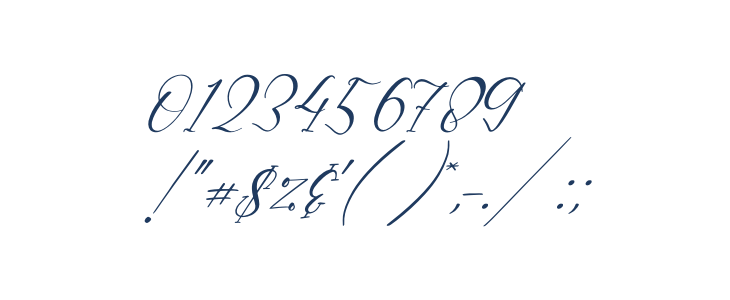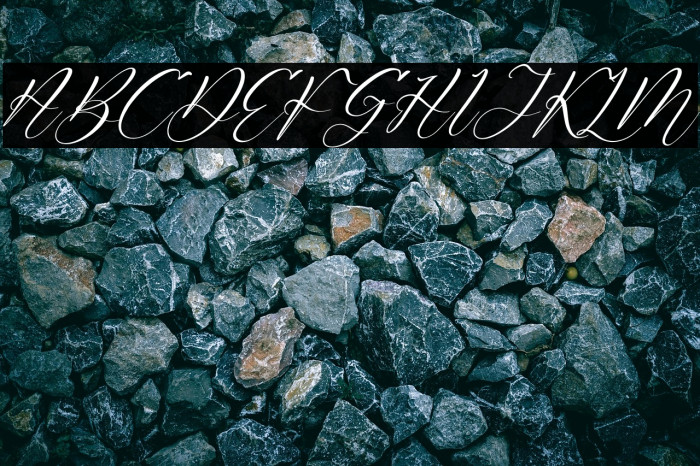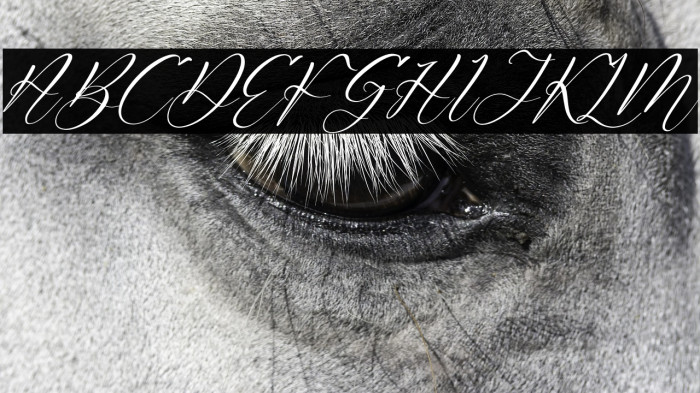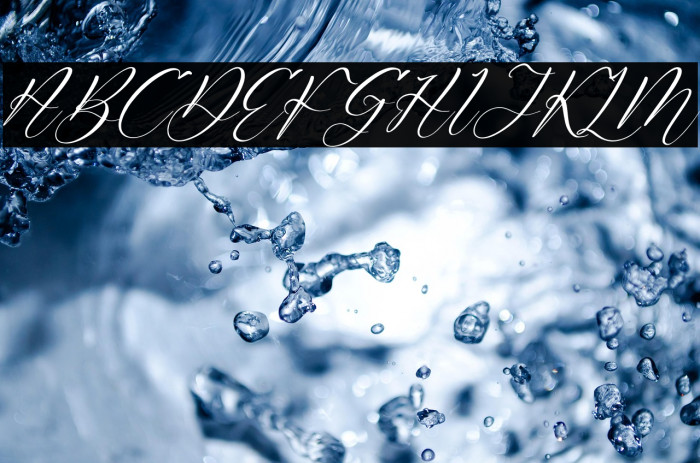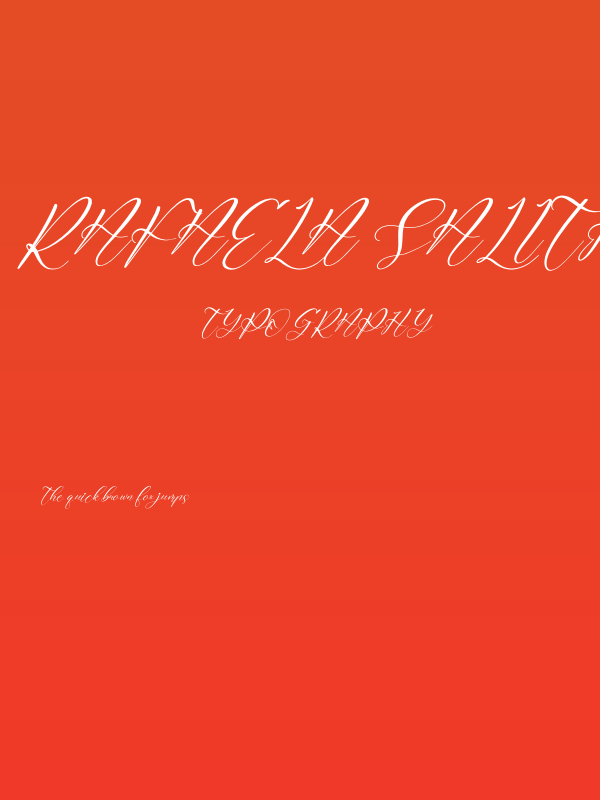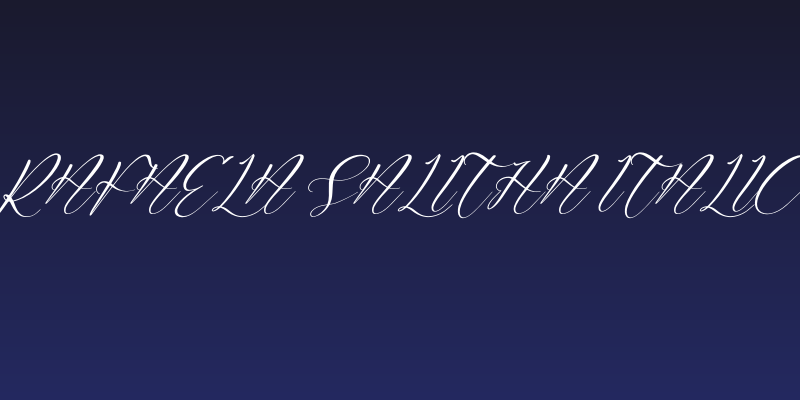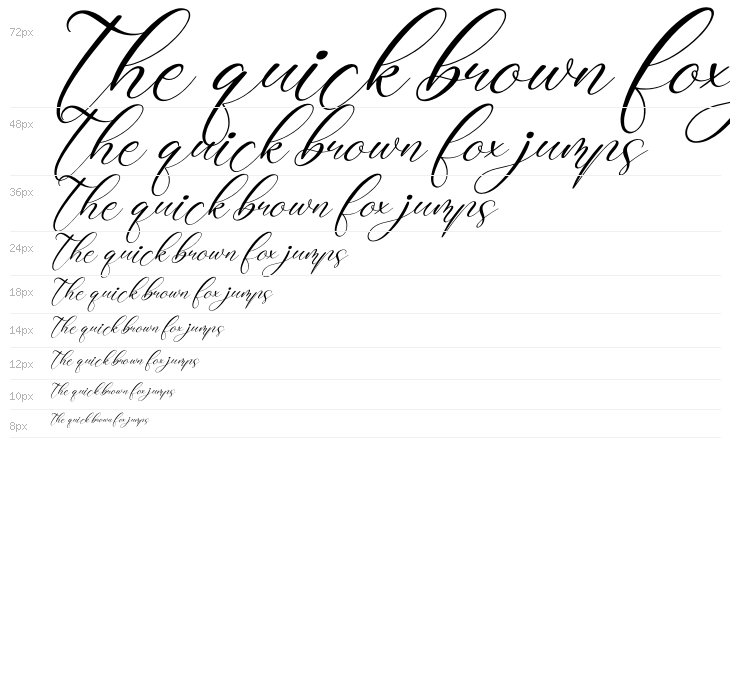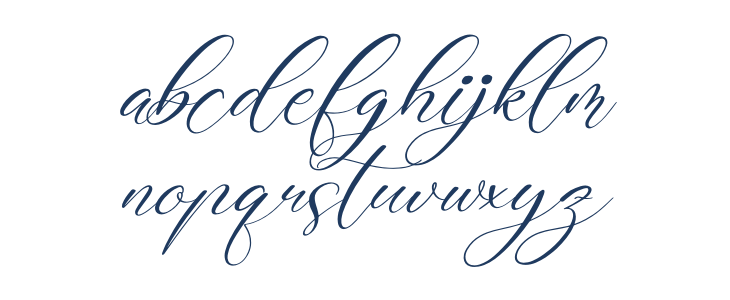
Rafaela Salitha Italic Font
Rafaela Salitha Italic Description
This elegant script font features a flowing, cursive style with beautifully crafted letters that exude sophistication and grace. The uppercase letters are tall and slender, with delicate loops and swashes that add a touch of flair. The lowercase letters maintain a consistent slant, enhancing the font's fluidity and charm. Numbers are designed with the same graceful curves, ensuring a cohesive look across all characters. Special characters are thoughtfully integrated, maintaining the font's overall aesthetic. This font is perfect for projects that require a touch of elegance and refinement.